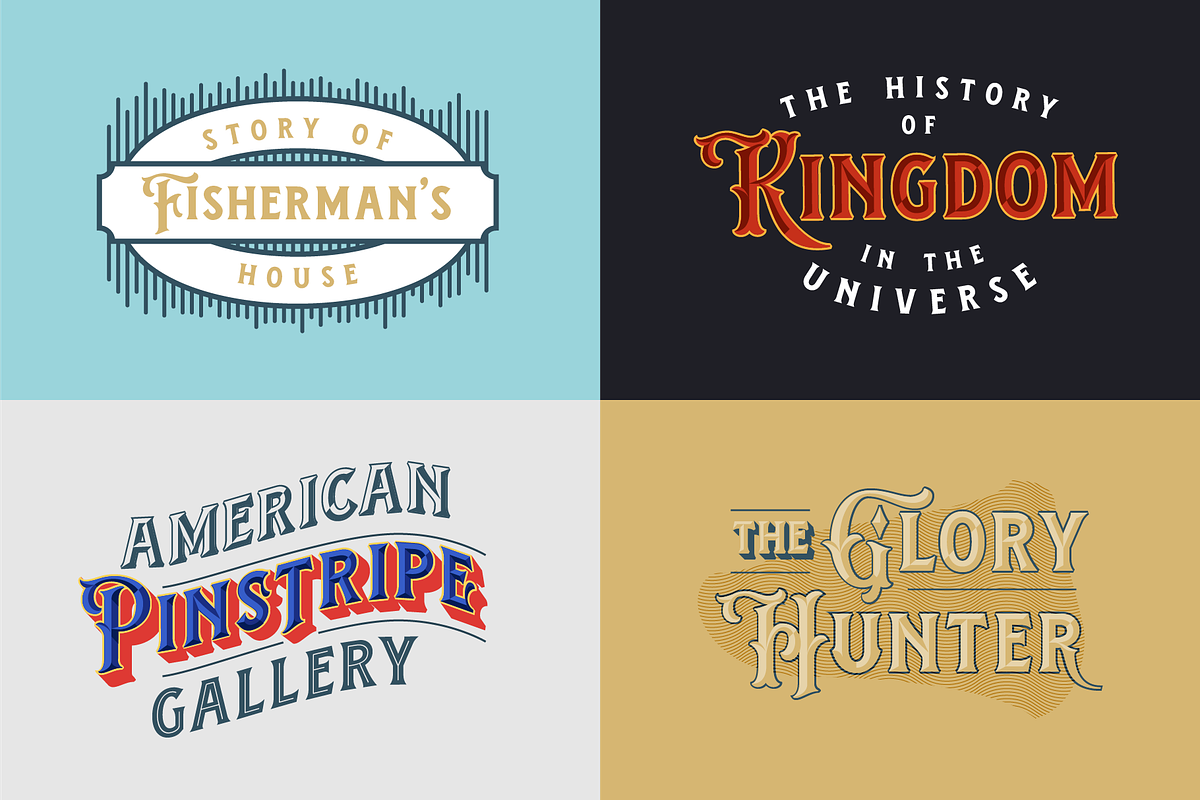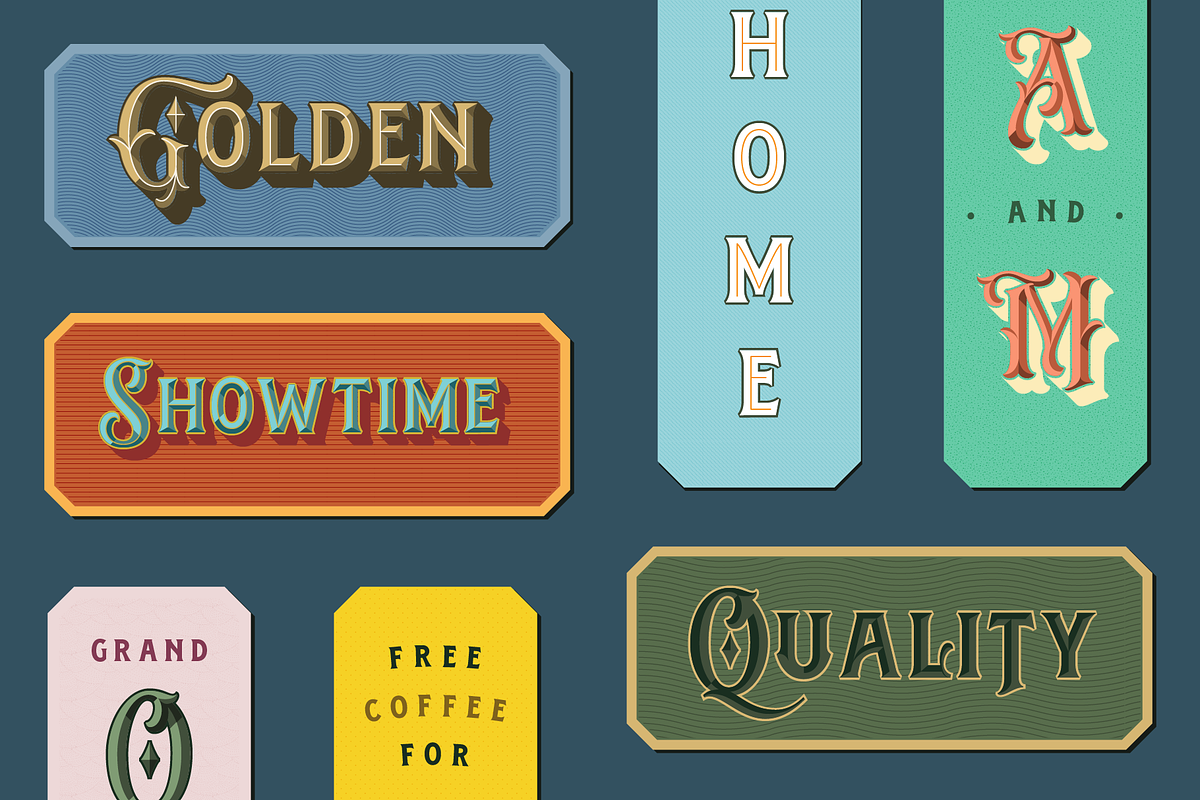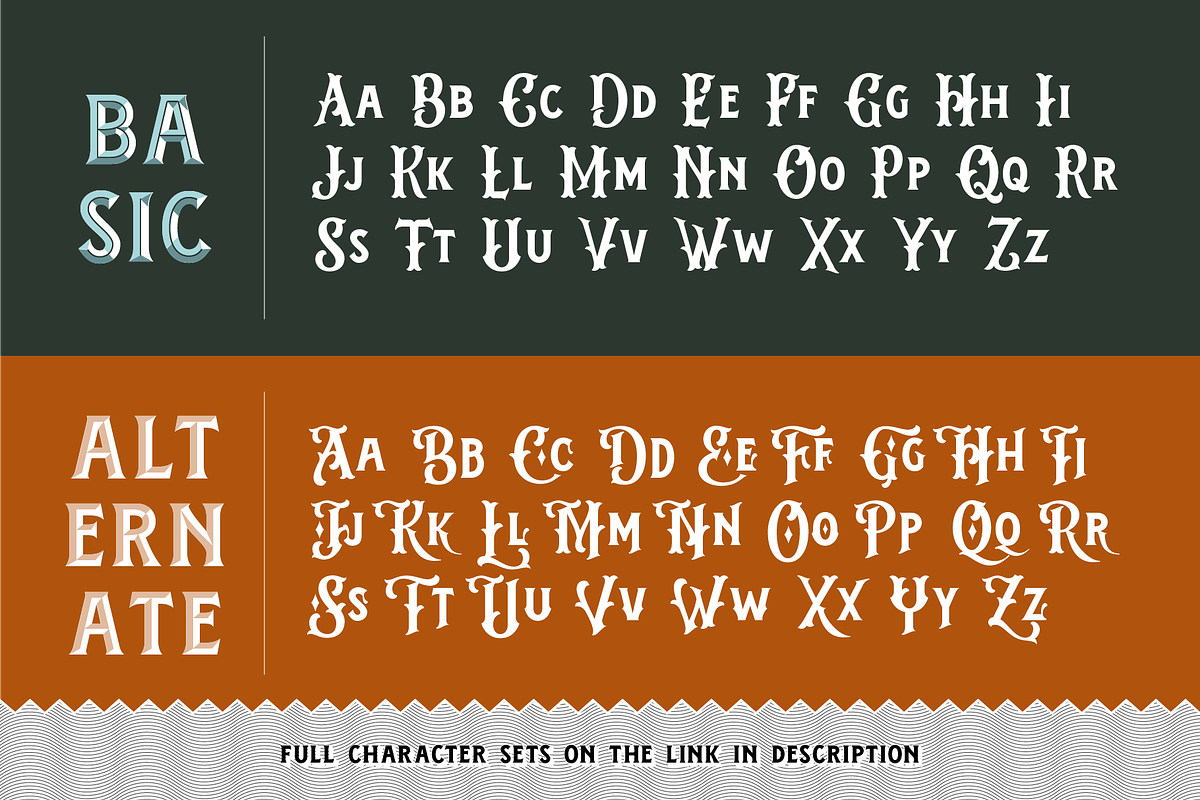
Chivels - Chiseled Vintage 3D Type
Introducing Chivels : Vintage Chiseled 3D Type System
Just Launched my brand new fonts with vintage fonts, combining with chisel effect that inspired from some of pinstripe styling to make it more life ! Chivels comes with 6 total fonts that you can combine each other to give different style effect. Starting with a base, you can add more fonts in the upper layer layer with inner, chisel light, chisel dark. and underneath layer you can fill with outline, and shadow.
Alternate Characters are available on every single alphabetical characters. in the OTF version, you can select the alternate characters in the glyphs panel or open type panels. but if you use a software that’s not include open type features, you can use the TTF version.
What’s Inside (this also representing the positional layer):
- Chivels Inner
- Chivels Chisel Light
- Chivels Chisel Dark
- Chivels Base
- Chivels Outline
- Chivels Shadow
I do love this font. Went so well with the print I am working with. But; Did have a few flaws. I had to do some adjusting to get all the layers to look right, and line-up just right. The shadow layer just didn't look right. Would have taken too much to get right. Ended up up doing my own. But; over-all I did like this font for every think it comes with.